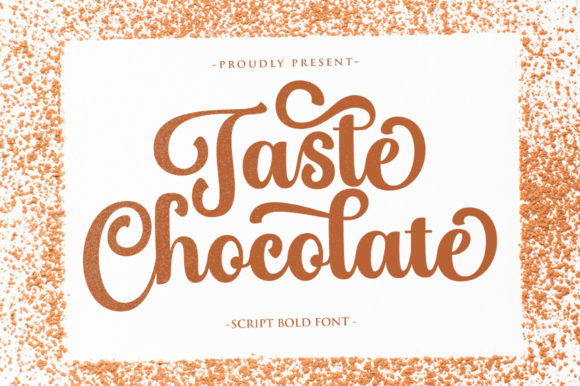
**Indulge in the Sweet Symphony of Taste Chocolate Font**
Immerse yourself in the delectable world of typography with Taste Chocolate Font. This enchanting script unfolds like a ribbon of molten chocolate, exuding elegance and charm that will tantalize your creative palate.
**A Timeless Homage to Calligraphy**
Crafted as a tribute to the artistry of traditional calligraphy, Taste Chocolate Font captures the essence of handwritten beauty. Each stroke dances across the page with grace, evoking the nostalgic charm of handwritten letters.
**Elevate Your Designs to New Heights**
Unleash your creative genius with Taste Chocolate Font. Its versatility knows no bounds, effortlessly elevating logos, branding, headings, invitations, wedding designs, labels, and more. Whether you seek a touch of whimsy or an air of timeless sophistication, this font has the power to transform your creations into masterpieces.
**The Perfect Font for Your Coffee Obsession**
Indulge your love of coffee with Taste Chocolate Font. Its rich, indulgent curves perfectly capture the warmth and aroma of your favorite caffeinated beverage. Create invigorating designs that will make your coffee business stand out from the crowd.
**Craft a Symphony of Words**
With Taste Chocolate Font, every word you write becomes a work of art. Its sophisticated charm adds an instant touch of elegance to your documents, transforming emails, presentations, and social media posts into visually stunning experiences.
**Immerse Yourself in a World of Creativity**
Taste Chocolate Font is your gateway to a world where imagination flourishes. Allow your creativity to flow freely as you experiment with different sizes, colors, and styles. Whether you're a seasoned designer or just starting your artistic journey, this font will inspire you to create designs that leave a lasting impression.